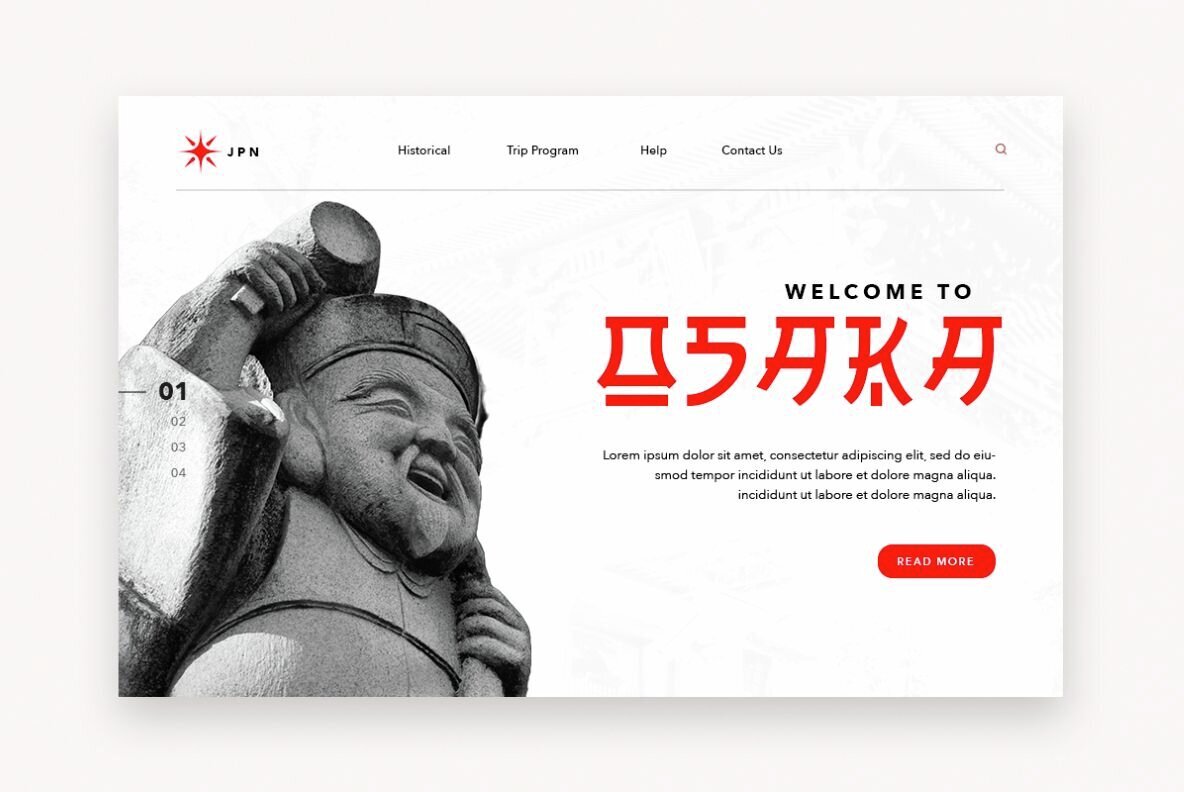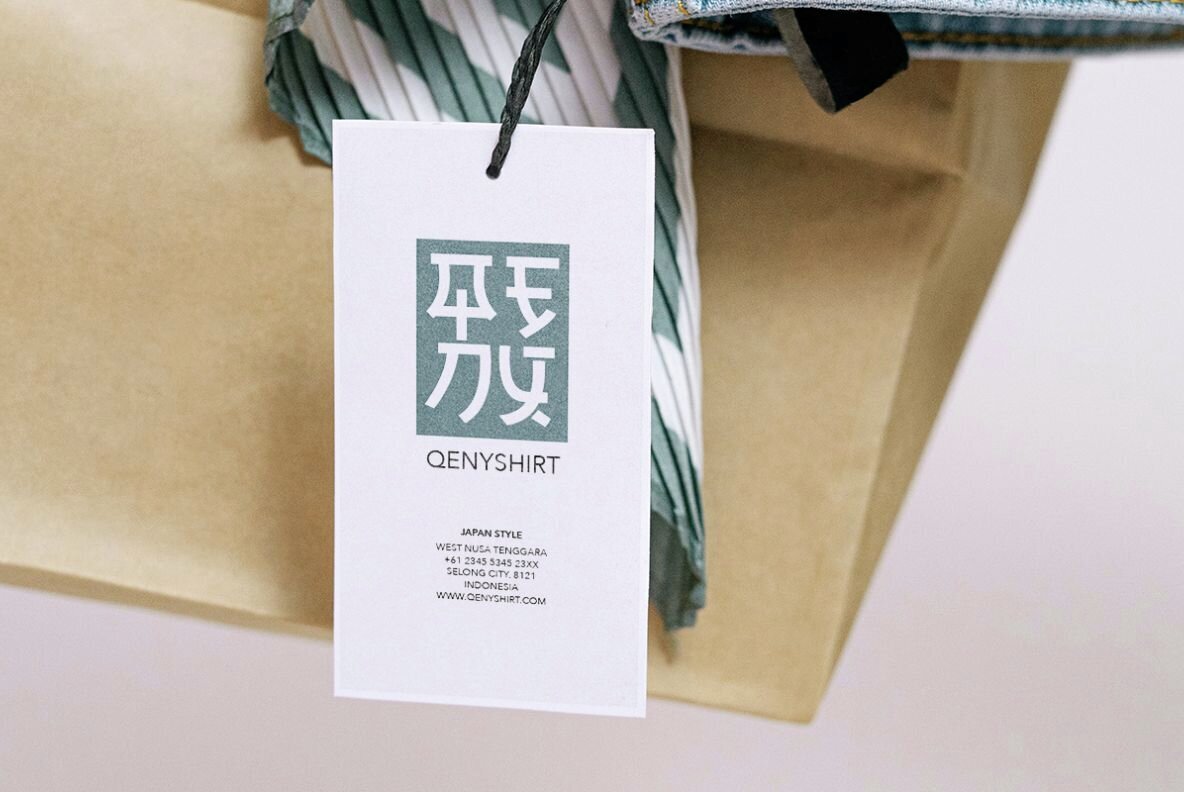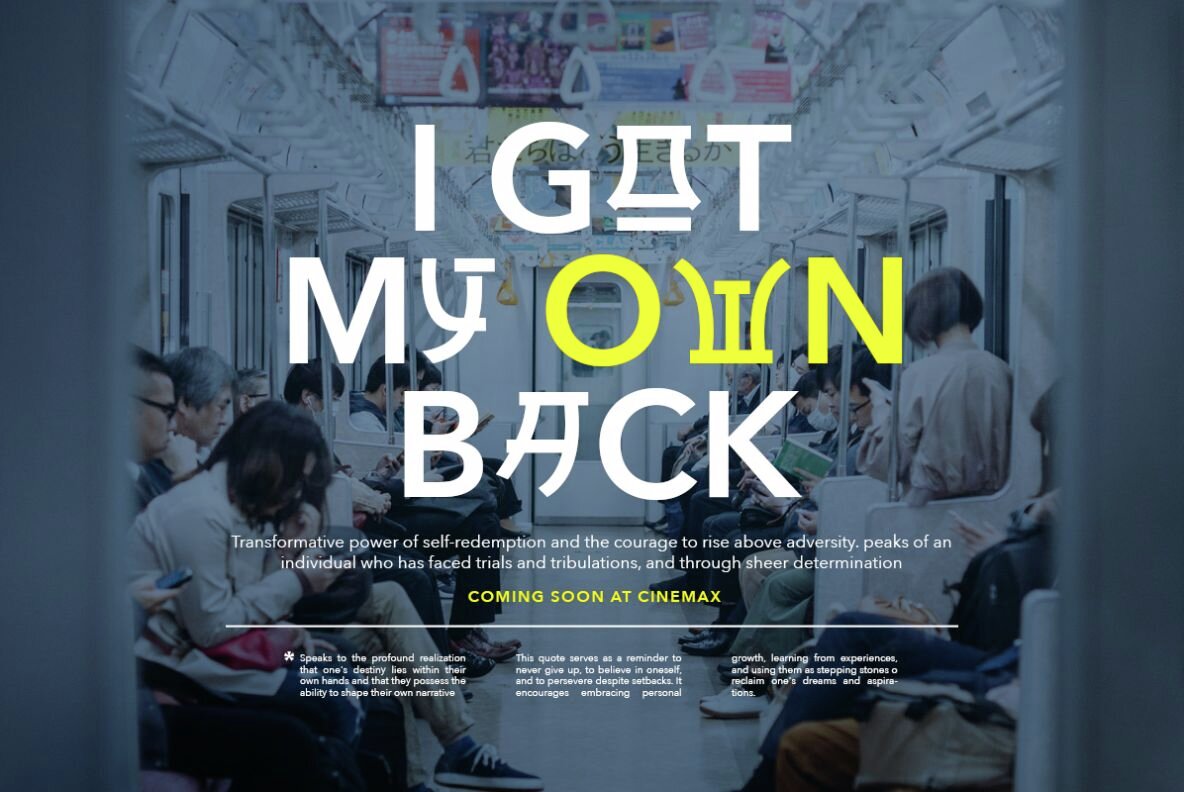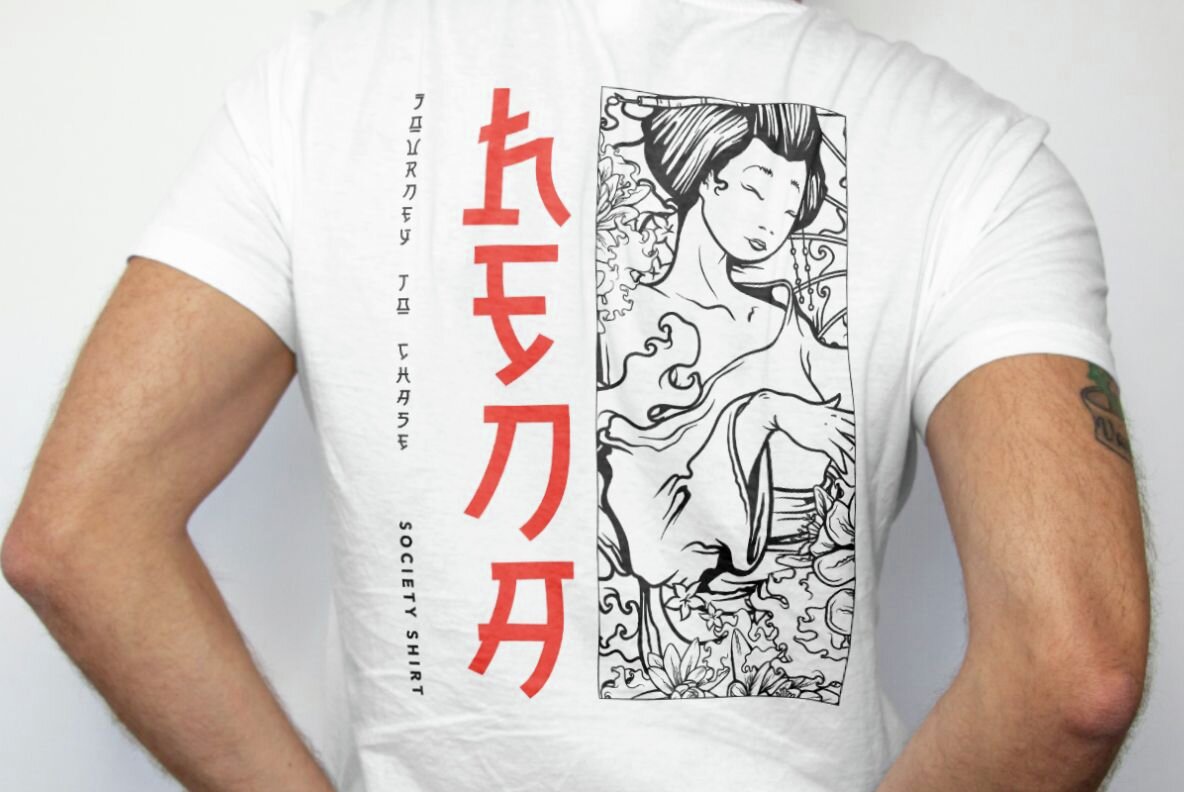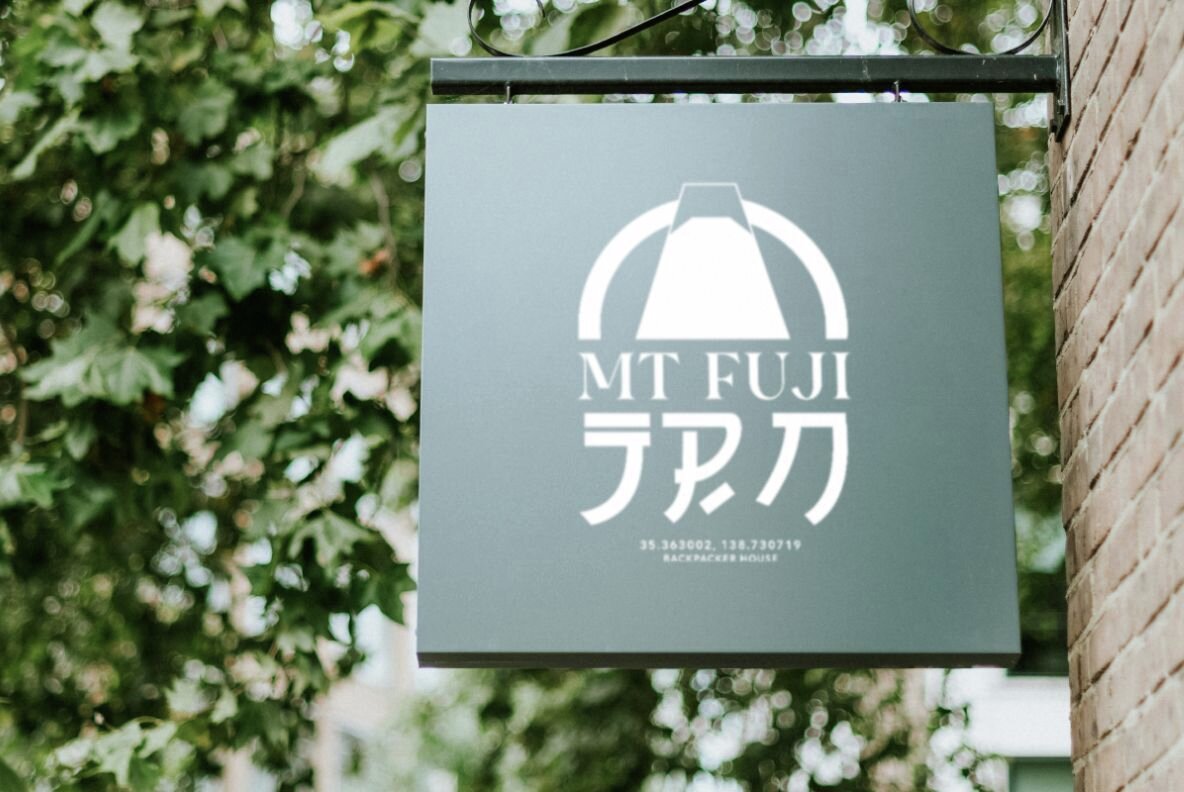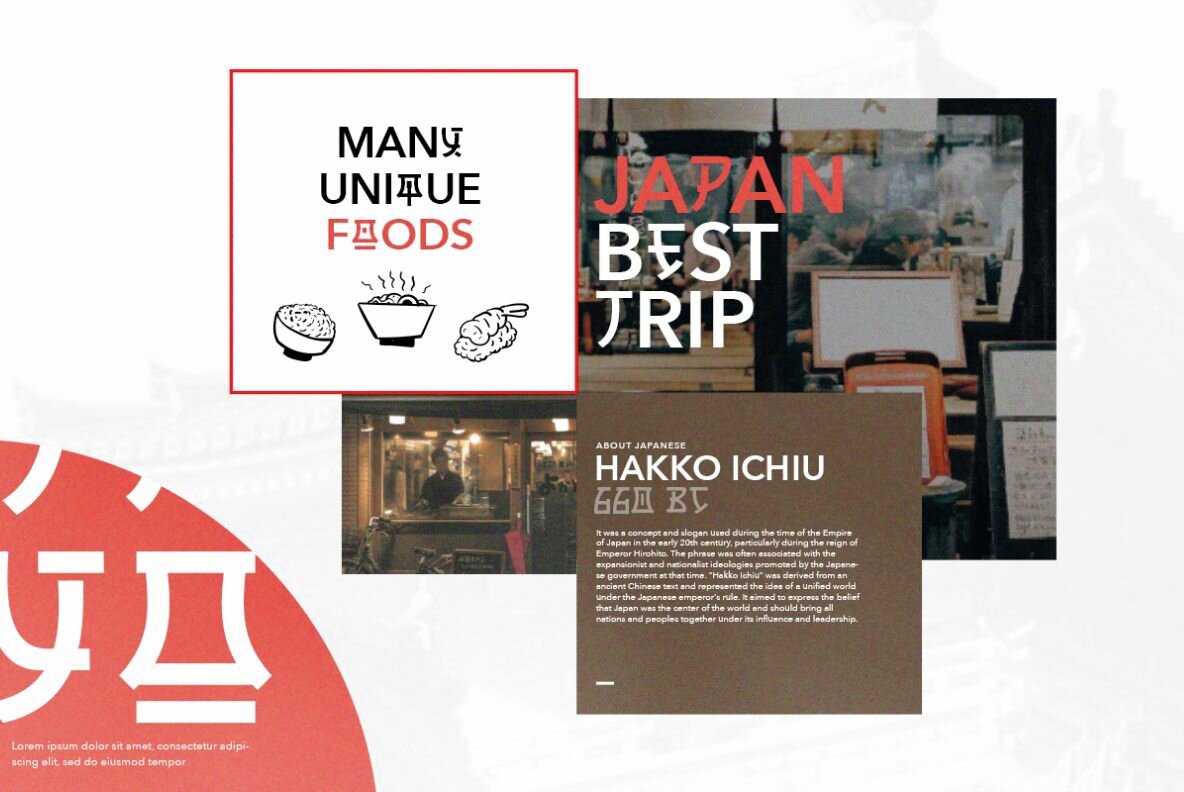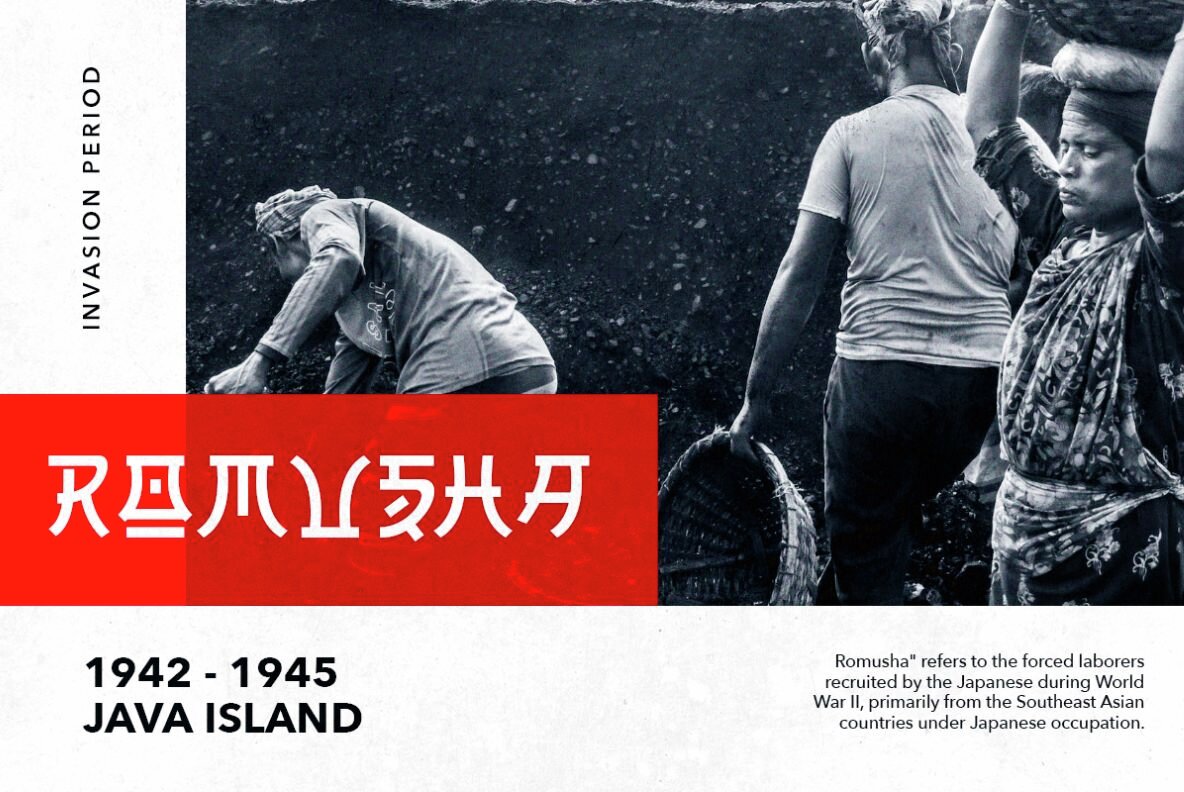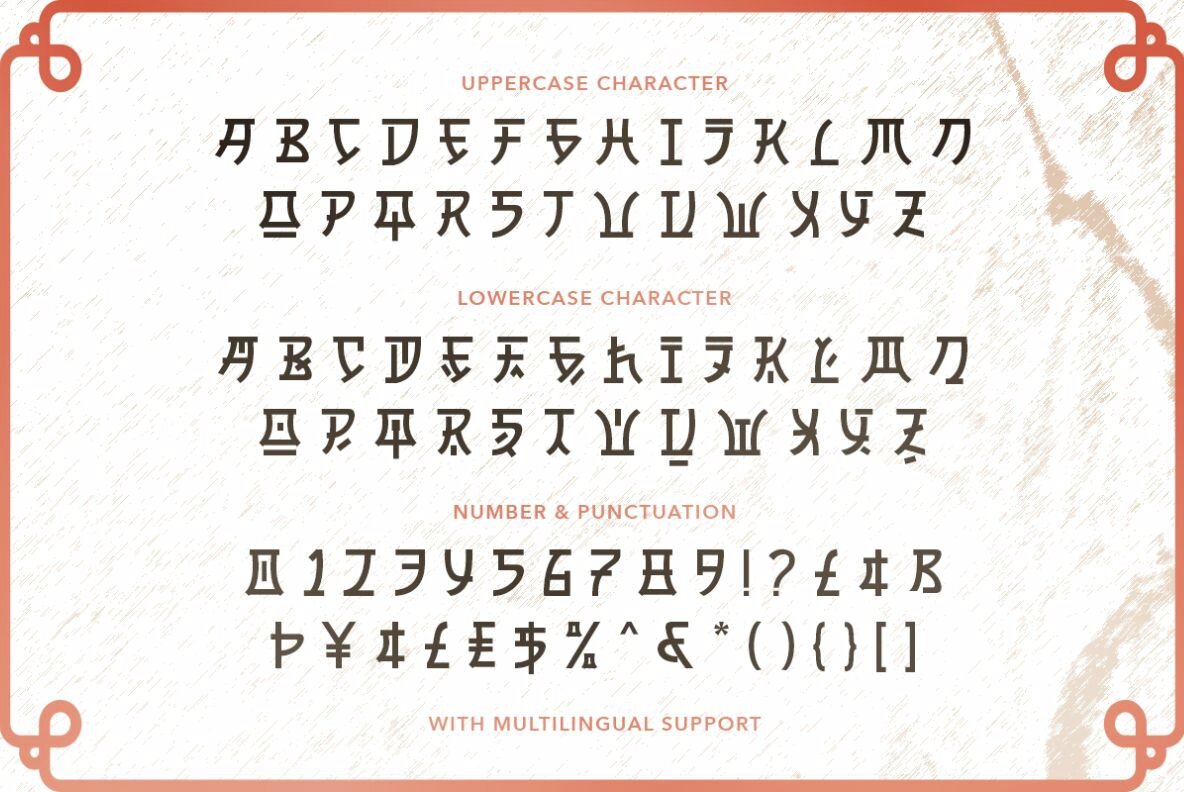
Jasuke Font
Jasuke Regular
Jasuke is a font inspired by the rich aesthetics of Japanese culture, offering a unique blend of ethnic and cultural influences in its design. Perfectly suited for projects connected to Japanese themes, it makes an excellent choice for branding in Japanese restaurants, clothing lines, and art-related ventures. Its distinct style captures the essence of Japanese traditions, appealing to both cultural enthusiasts and professionals alike.
Versatile and adaptable, Jasuke can be paired with a sans serif typeface to enhance the visual interest of your projects. This font's multilingual support expands its utility, making it an excellent tool for reaching diverse audiences. Its carefully crafted glyphs ensure a seamless integration into various design contexts, providing a touch of authenticity and cultural richness.